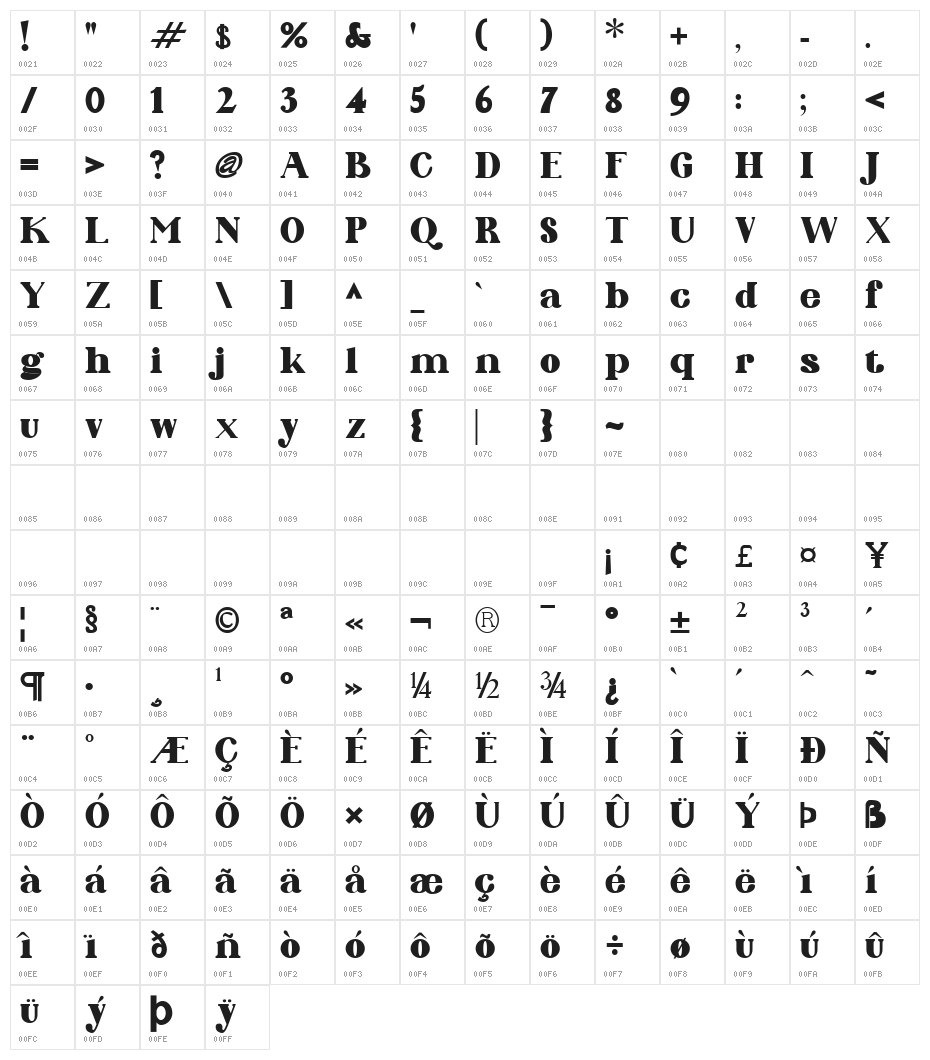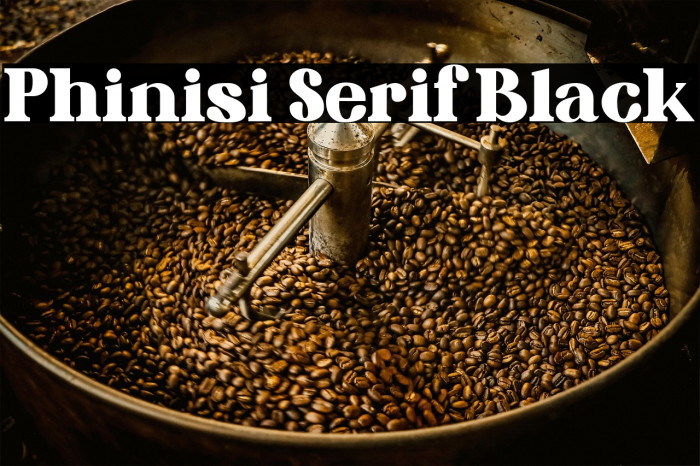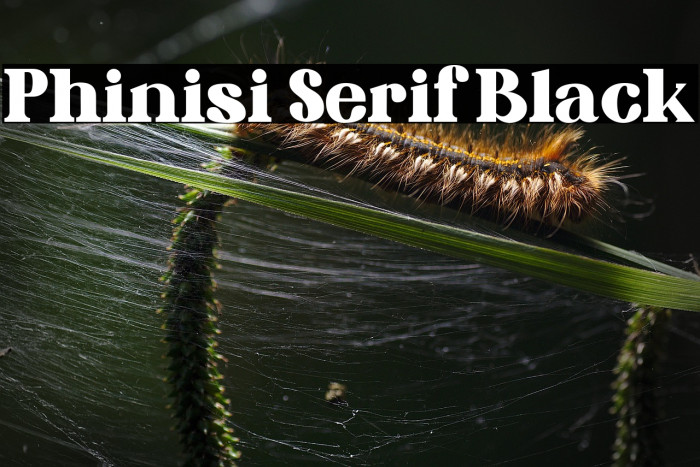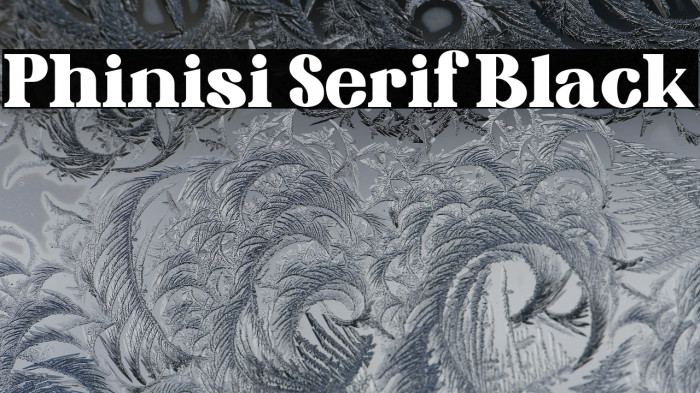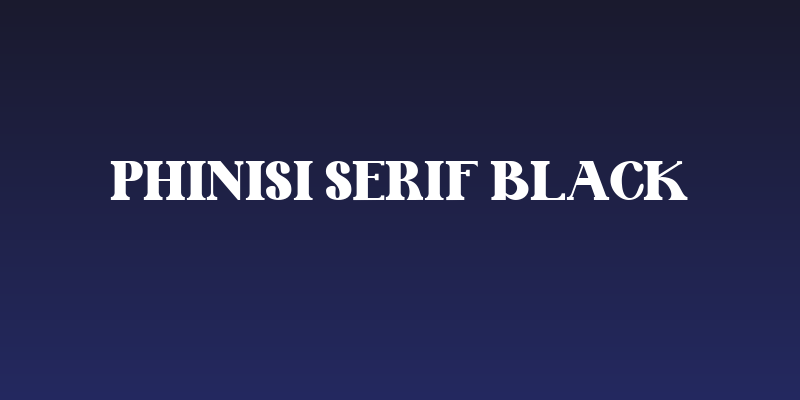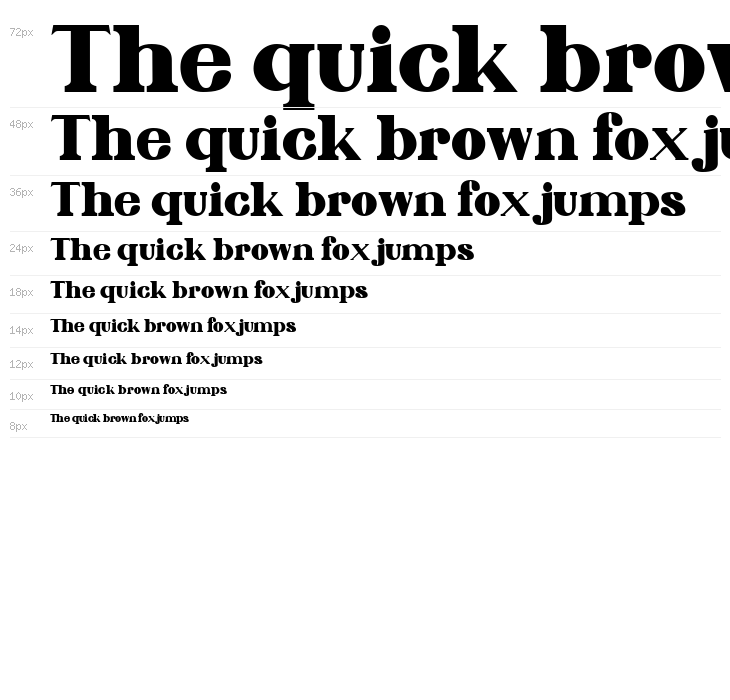
Phinisi Serif Black Font
Phinisi Serif Black Description
This font exhibits a bold and commanding presence with its strong serif features. The characters are robust, with thick strokes and pronounced serifs that give it a classic yet powerful appearance. The uppercase letters are particularly striking, with a sense of authority and elegance. The lowercase letters maintain a consistent style, ensuring readability while preserving the bold aesthetic. Numbers and special characters are designed with the same attention to detail, making them stand out distinctly. This font is ideal for projects that require a strong visual impact, combining traditional serif elements with a modern twist.